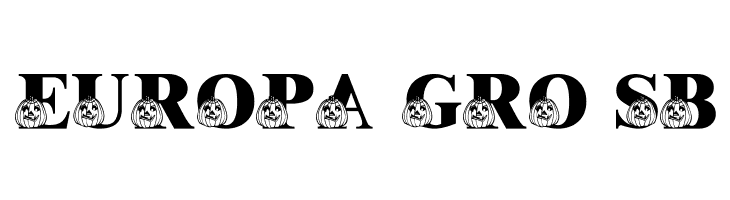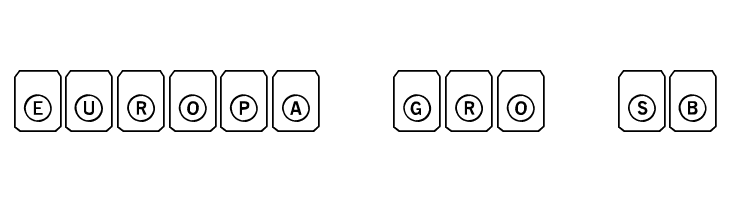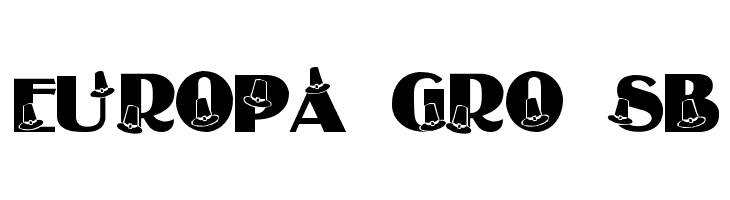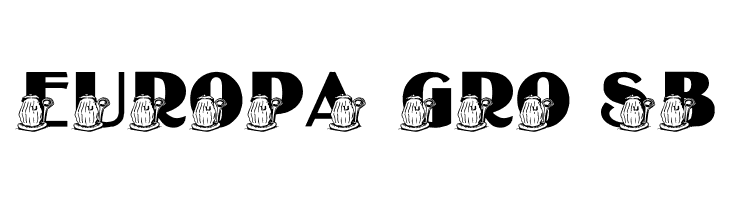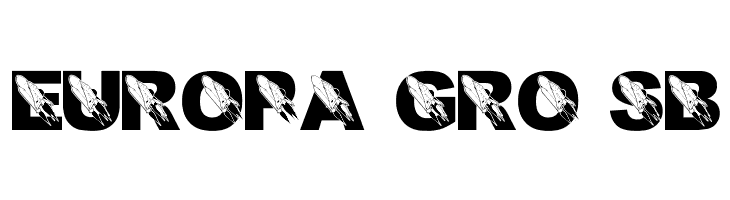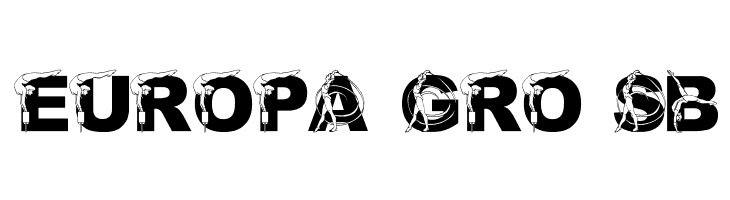
A decorative font with ornate, flowing embellishments for a whimsical and elegant look.
A bold, decorative font with pumpkin-themed embellishments for a festive look.
A bold, playful font with characters encased in rounded rectangles, reminiscent of vintage typewriter keys.
A playful font featuring Pilgrim hats atop bold characters.
A playful, decorative font with colorful, rainbow-like patterns and a whimsical style.
A bold, playful font with illustrated trash cans for an eco-friendly theme.
A decorative font with space shuttle motifs integrated into each character.
A bold, decorative font with integrated space shuttle graphics for a dynamic look.
A bold, decorative font with integrated flip-flop illustrations for a playful look.
A bold, decorative font featuring gymnastic figures integrated into each character.